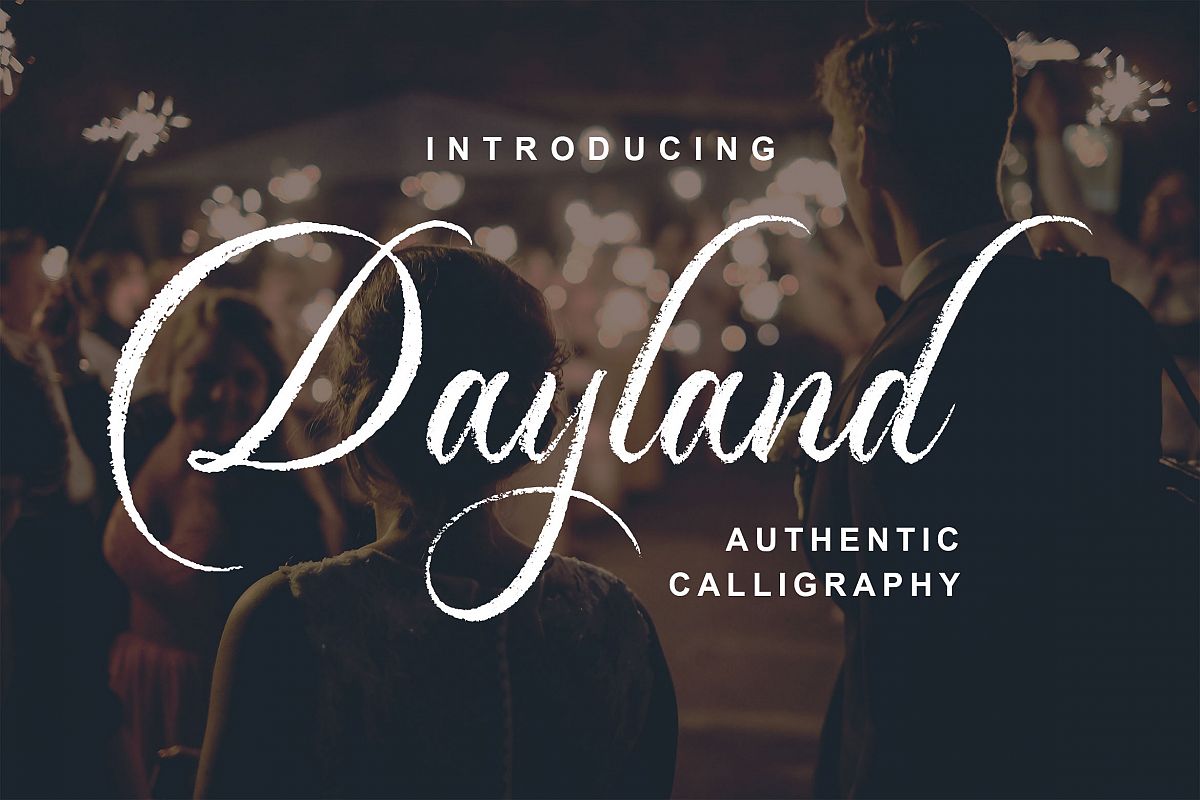
Introducing a new calligraphy script called Dayland. Dayland good for signature logo, wedding invitation, romantic quote, logotype, poster, social media kit, book cover, tshirt design, packaging and any more.